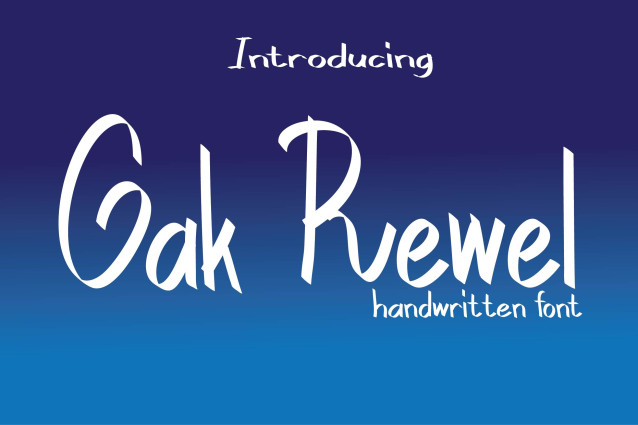
Gak Rewel Font
Gak Rewel Font is a simple and friendly handwritten font. Its natural and unique style makes it incredibly fitting to a large pool of designs. The only limit is your imagination!